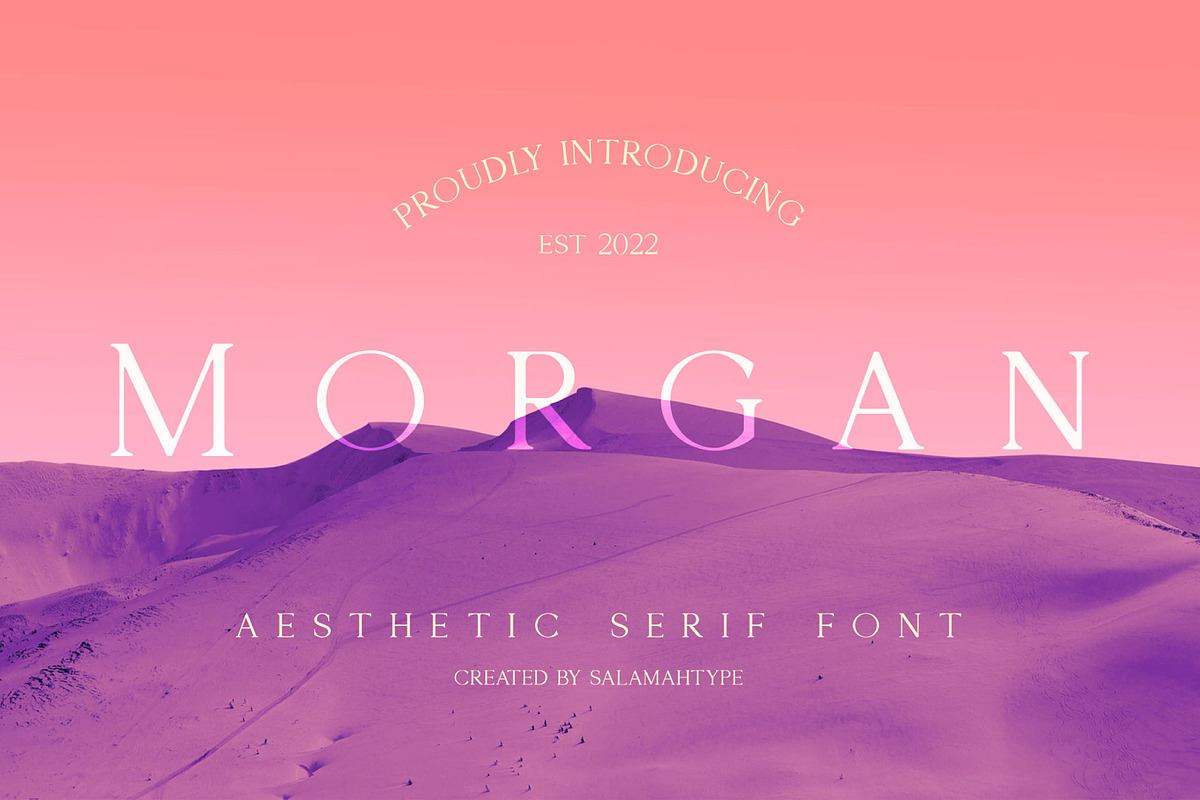
Morgan - Serif Font Free Download
Morgan Serif Font Free Download
Morgan Serif Font Free Download is a clean and elegant typeface that blends classic serif structure with a modern, minimalist touch. Perfect for branding, editorial layouts, logos, websites, and print design, Morgan offers a timeless look that elevates your visual presence with sophistication and clarity.
Whether you're building a luxury brand, designing a sleek magazine spread, or crafting a high-end packaging concept, Morgan delivers both beauty and functionality. It’s the perfect serif font for designers who want to balance tradition with a fresh, modern edge.